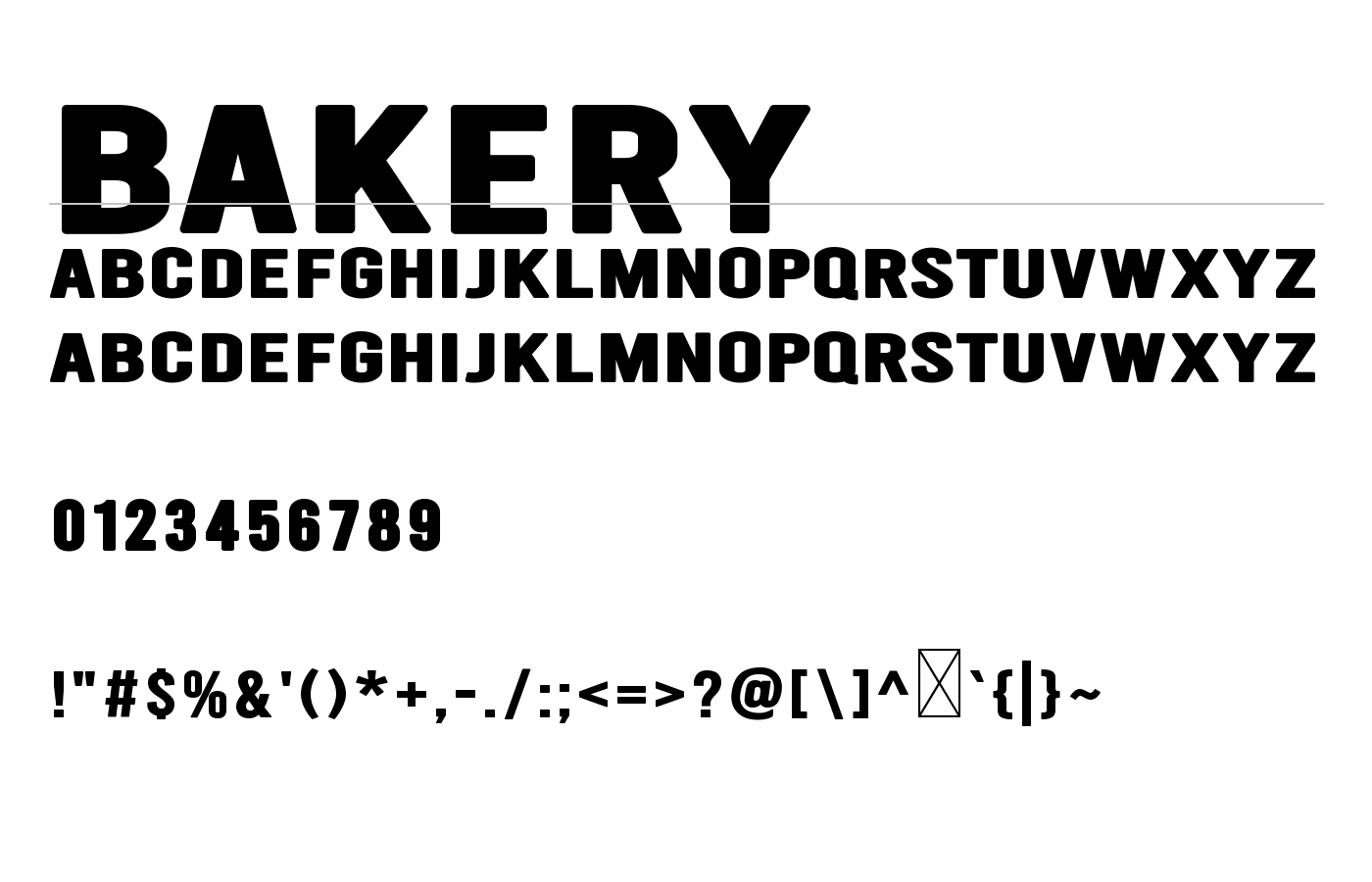
Bakery Font is a bold, condensed sans serif typeface with strong, blocky letterforms that convey a sense of strength and impact. Its uniform stroke weight and tight spacing make it ideal for headlines, logos, and branding that require a modern, confident, and straightforward appearance. This font works especially well in packaging and advertising where clear, attention-grabbing typography is essential.
Bakery Font
About Bakery Font
| Font family | Bakery Font |
| Designer | Fina Fadlilah |